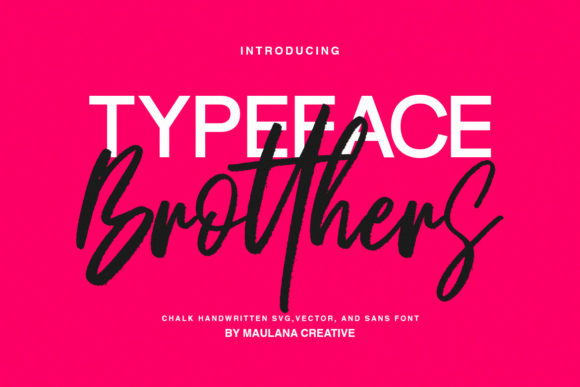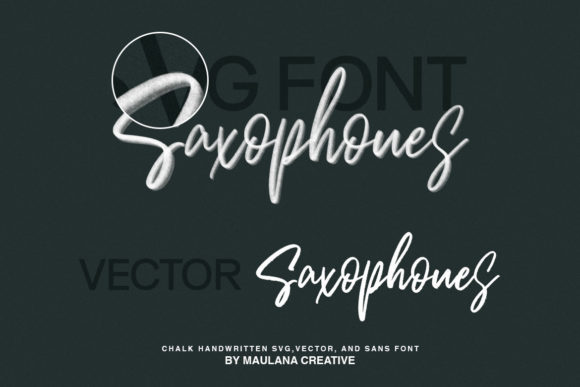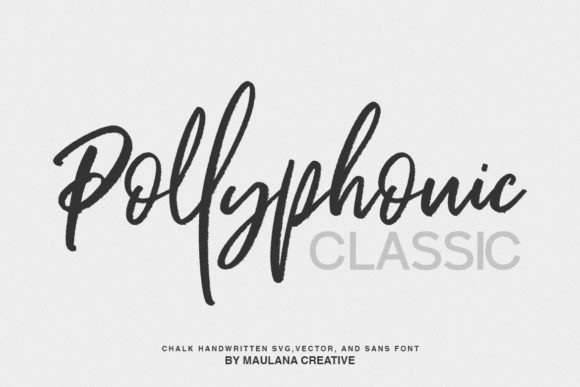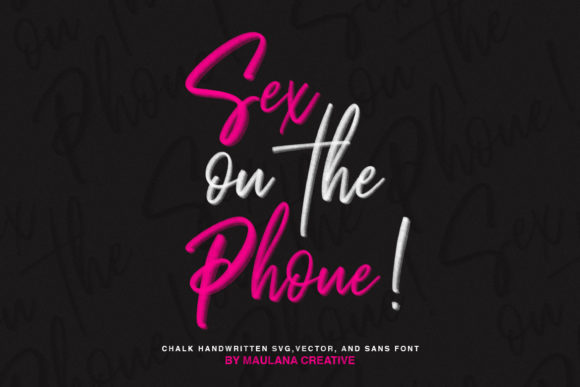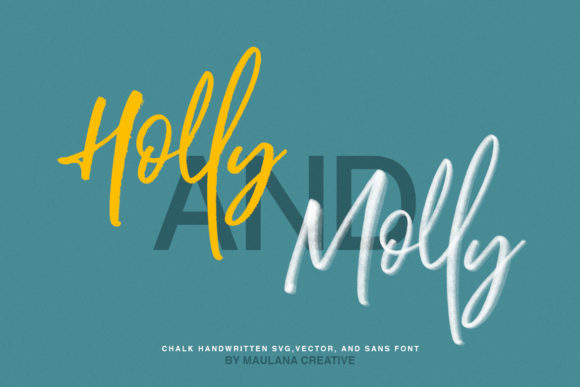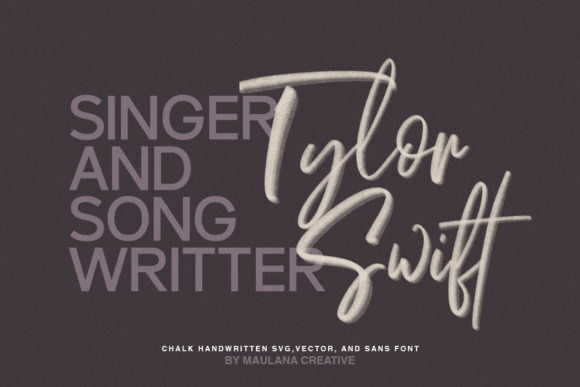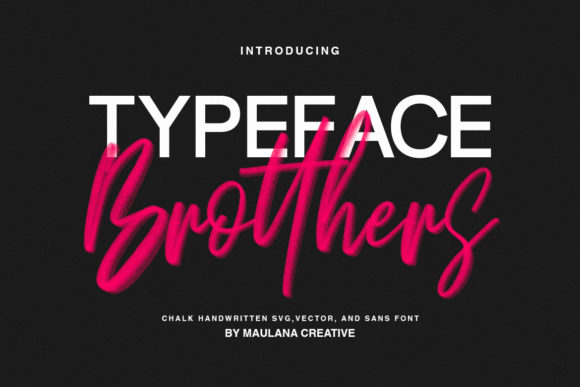
Brotthers Font: The Authentic Handwritten Font that Radiates Life
Are you tired of using the same old fonts in your designs? Do you want to add a touch of personality and uniqueness to your creations? Look no further than Brotthers Font, an authentic handwritten font that radiates life and energy. In this article, we’ll dive into the world of Brotthers Font and explore its unique charm, features, and uses.
The Story Behind Brotthers Font
Brotthers Font is a carefully crafted handwritten font that is designed to bring a sense of warmth and personality to your designs. Its unique charm lies in its imperfections and quirks, which give it a distinctly human feel. The font is the brainchild of a talented designer who sought to create a typeface that would stand out from the crowd and inspire creativity.
What Makes Brotthers Font Special?
So, what sets Brotthers Font apart from other fonts out there? Here are a few features that make it truly special:
- Authentic Handwritten Style: Brotthers Font is designed to mimic the look and feel of handwritten text. Its irregularities and imperfections give it a unique, organic feel that is hard to replicate with digital fonts.
- Unique Character Set: The font includes a wide range of characters, including uppercase and lowercase letters, numbers, and punctuation marks. Each character is carefully designed to work seamlessly with the others, creating a cohesive and harmonious look.
- Highly Versatile: Brotthers Font is incredibly versatile and can be used in a wide range of design applications, from branding and advertising to packaging and digital media.
How to Use Brotthers Font in Your Designs
Using Brotthers Font in your designs is easy. Here are a few tips to get you started:
- Pair it with Other Fonts: Brotthers Font pairs well with a wide range of other fonts, from serif and sans serif fonts to script and display fonts. Experiment with different combinations to find the one that works best for your design.
- Use it for Headings and Titles: Brotthers Font is perfect for headings and titles, where its unique charm and character can really shine.
- Add it to Your Brand Identity: If you’re looking to create a unique brand identity, Brotthers Font is a great choice. Its authentic handwritten style can help to give your brand a warm and welcoming feel.
Brotthers Font is a font that inspires creativity and imagination. Here are a few ideas to get you started:
- Create a Vintage-Inspired Design: Brotthers Font is perfect for creating vintage-inspired designs, such as posters, flyers, and brochures.
- Design a Personalized Gift: Use Brotthers Font to create personalized gifts, such as customized mugs, t-shirts, and tote bags.
- Develop a Brand Identity: Use Brotthers Font to develop a unique brand identity that stands out from the crowd.
In conclusion, Brotthers Font is an authentic handwritten font that radiates life and energy. Its unique charm and character make it perfect for designers and crafters who want to add a touch of personality to their creations. With its highly versatile design and wide range of uses, Brotthers Font is a font that is sure to inspire creativity and imagination.